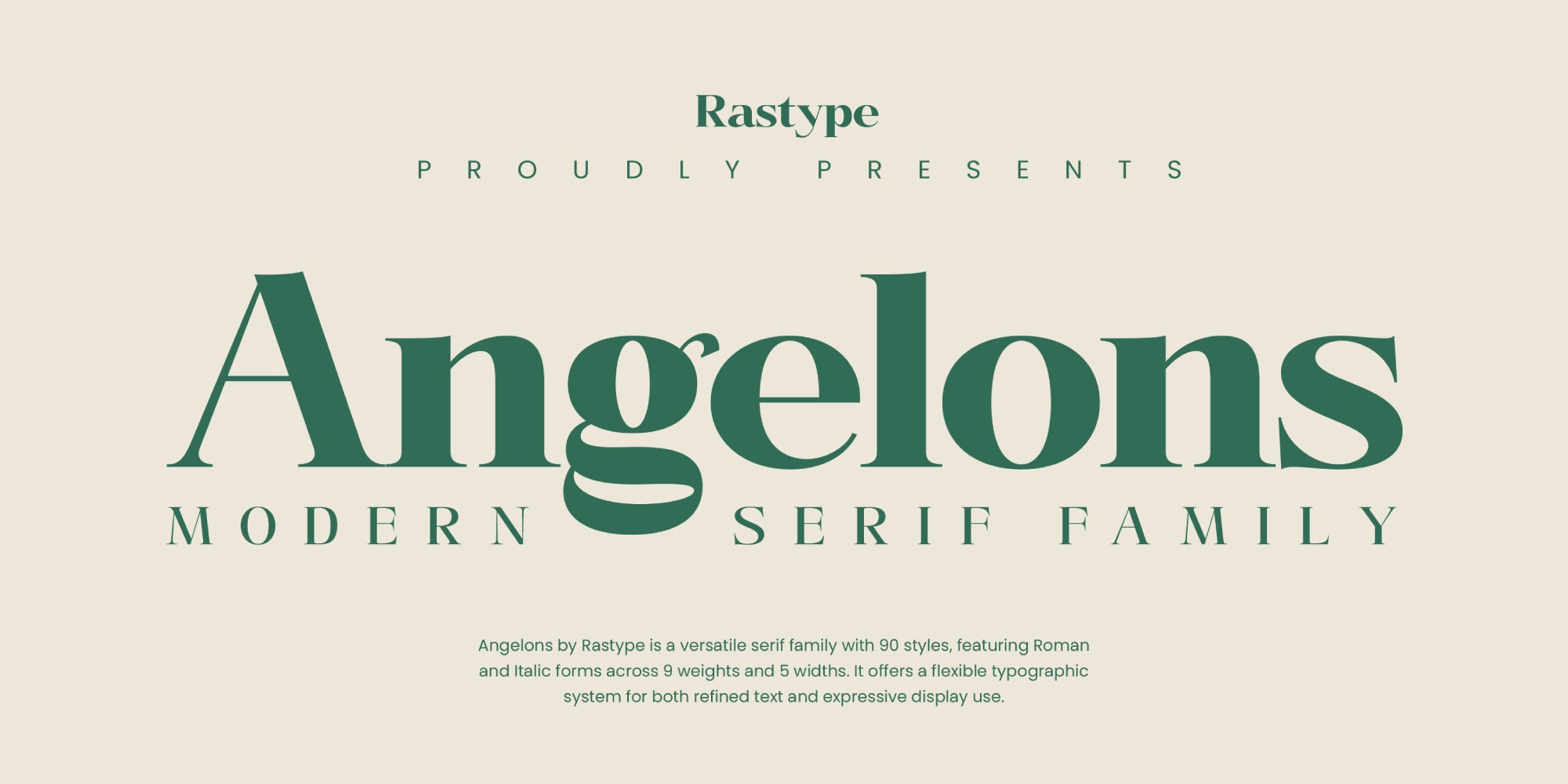
Angelons Font Family
Angelons Font Family brings a balanced structure and contemporary look, making it suitable for both digital and print design. Angelons Serif is a refined and elegant typeface that blends classic serif traditions with a modern aesthetic. It features gracefully tapered strokes, balanced proportions, and subtle contrast between thick and thin lines, giving it a sophisticated and timeless appearance. The letterforms are carefully crafted to maintain readability while still expressing a sense of luxury and personality. This typeface works particularly well in high-end branding, editorial design, invitations, and headline settings where a touch of class is desired. Its distinctive serifs and smooth curves create a harmonious rhythm across text, making it both visually appealing and functional. Angelons Serif strikes a balance between tradition and contemporary style, making it versatile for a wide range of creative applications.